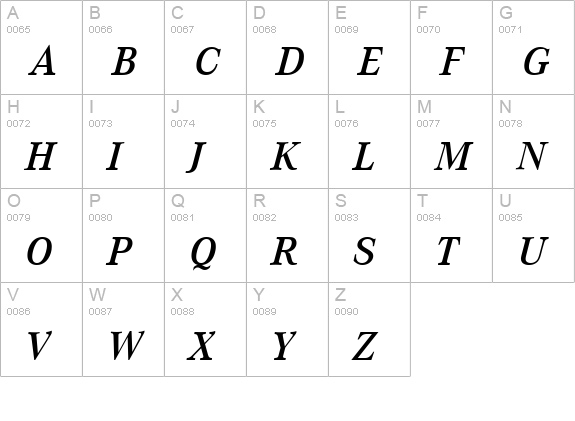
Corporate A Medium Italic is a balanced, medium-weight, italic variant in the Corporate typeface family \xE2\x80\x94 well suited to sub-headlines, navigation, and balanced editorial work.
Corporate A Medium Italic is a sleek and modern font that exudes professionalism and sophistication. With its clean lines and elegant curves, this font is perfect for corporate branding, business documents, and professional presentations. The Medium weight adds a touch of boldness while the Italic style brings a sense of dynamism to your projects. What sets Corporate A Medium Italic apart is that it is available for free download at FontsMarket.com. This means you can easily access and use this stylish font without any cost, making it a valuable addition to your design toolkit. Whether you're working on a corporate website, marketing materials, or any other project that requires a touch of class, Corporate A Medium Italic is the perfect choice. Elevate your designs with this sophisticated and versatile font today!